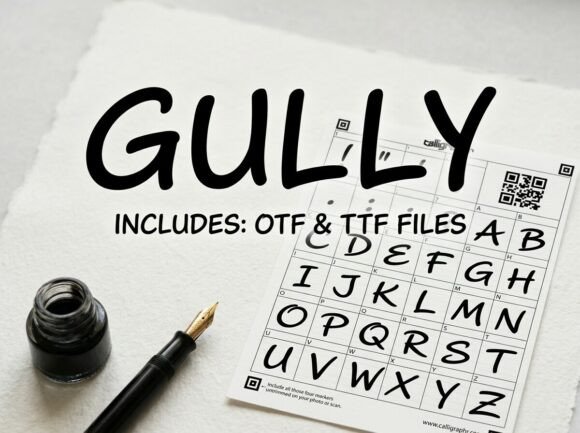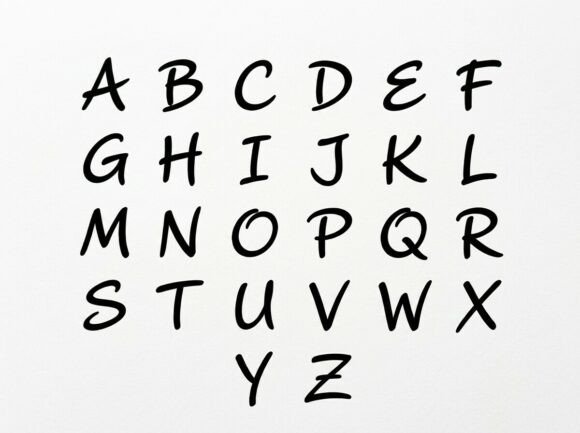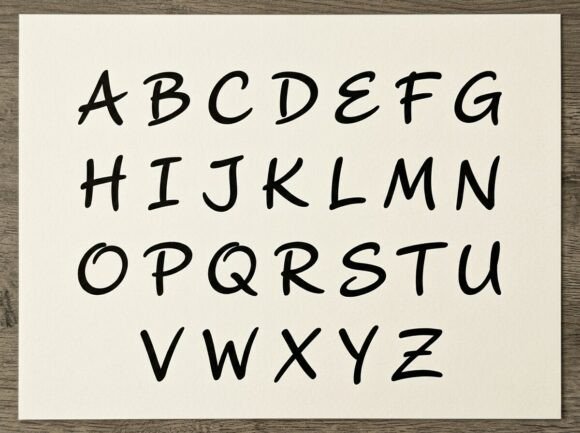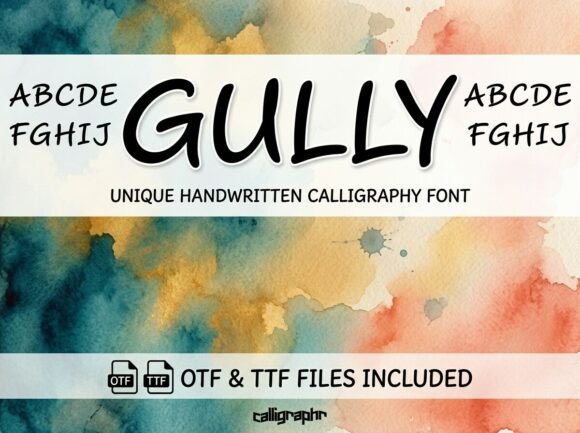
Introducing Gully Font: A Stunning Decorative Display Font
Are you tired of using the same old fonts for your designs? Look no further! Gully Font is a unique and artistic decorative display font that’s sure to make your creations stand out from the crowd. With its strong visual personality and attention-grabbing design, this font is perfect for creators who want to break away from the ordinary and make a statement.
What Makes Gully Font Special?
Gully Font is a meticulously crafted decorative display font that’s designed to be the center of attention. Its unique artistic elements and strong visual personality make it perfect for bold headlines, artistic logos, and creative packaging. Whether you’re a designer, craftsperson, or DIY enthusiast, this font is sure to elevate your projects to the next level.
Gully Font is perfect for designers and crafters who want to add a touch of elegance and sophistication to their projects. With its unique and artistic design, this font is sure to make your creations stand out from the crowd. Whether you’re designing a logo, creating a brochure, or crafting a DIY project, Gully Font is the perfect choice.
Use Cases
So, what can you use Gully Font for? Here are some ideas to get you started:
- Headlines and Titles: Use Gully Font to create bold and eye-catching headlines and titles that grab attention.
- Logos and Branding: Create a unique and memorable logo for your business or brand with Gully Font.
- Packaging and Labels: Add a touch of elegance and sophistication to your packaging and labels with Gully Font.
- Art and Design Projects: Use Gully Font to add a creative and artistic touch to your art and design projects.
Why Choose Gully Font?
So, why choose Gully Font over other fonts? Here are just a few reasons:
- Unique Design: Gully Font has a unique and artistic design that’s sure to make your creations stand out.
- Professional and Polished Finish: Gully Font has a professional and polished finish that’s perfect for designs that require a touch of elegance and sophistication.